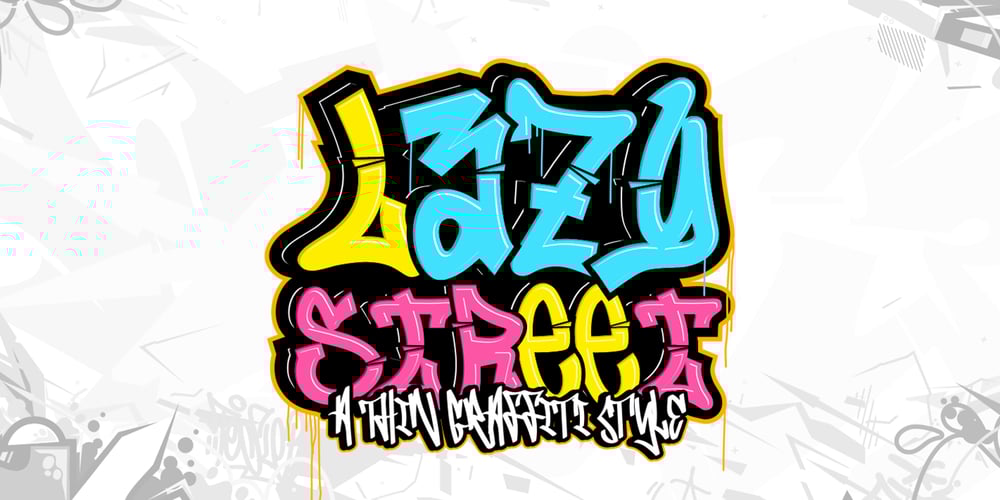
Lazy Street Graffiti
Lazy Street Graffiti font
Lazy Street Graffiti Font Family was designed by Sipanji and published by Sipanji21. Lazy Street Graffiti contains 3 styles and family package options. Lazy Street is a thin, layered graffiti font that blends sleek modernity with the authentic energy of urban street art. Featuring three unique styles—solid, outline, and extrude—this font allows you to mix and match layers to create bold, dimensional designs with a refined edge. Its thin strokes provide a contemporary twist to the graffiti aesthetic, making it ideal for projects that need a balance of subtlety and attitude. Whether you’re designing posters, streetwear, album covers, urban branding, or creative layouts, Lazy Street adds a stylish and effortlessly cool vibe to your work. Perfect for capturing the raw essence of graffiti culture while maintaining a lightweight, polished appearance, this font is a must-have for those looking to make a striking yet sophisticated statement.”